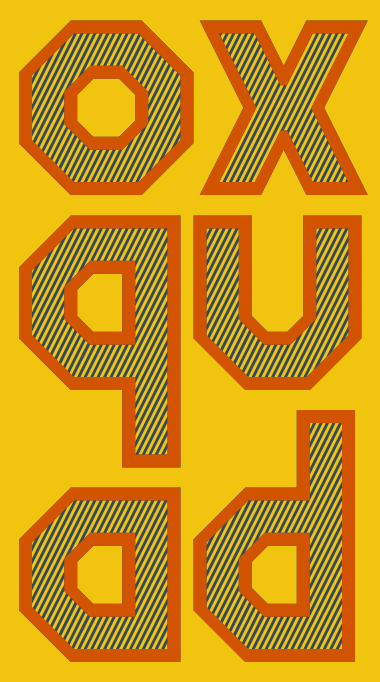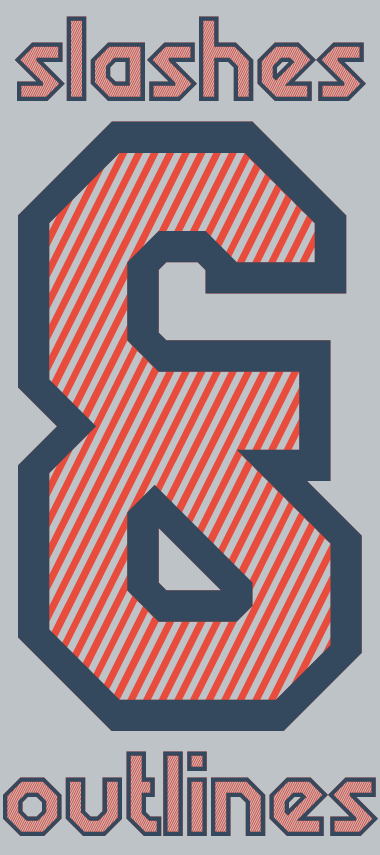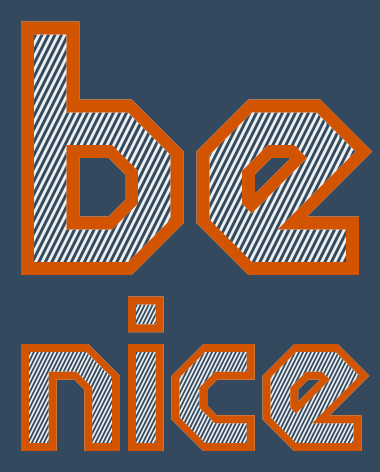
• Only lowercase and minimal punctuation for now...not enough time for a complete set. The lowercase characters can be layered on the uppercase to get different colored outlines and slashes. The uppercase contains the characters as the outlines and the internal slashes. The lowercase contains the characters as just the outlines. The punctuation has the outline only version on the it's key and the slashed version on the SHIFT + key. For example, 2 contains the outline version of @ and SHIFT + 2 contains the slashed version of the @.
Nice font, I prefer the internal slashes. The uppercase version has more power.
Very cool.
Maybe after the competition is over, I'll find some time to split this into two complete fonts...one with slashes, one with just the outlines.
That's a good idea.
Slashed or plain, both look good.
I'm loving it!
While I was making it, I felt like it was too simple to compete against some of the stuff that's been made for this competition.
Probably still is...but, it did turn out better than I expected.
Great samples! I always like your clever ampersands.
I love the angularity! Kudos. :)
Smth different. Good luck!